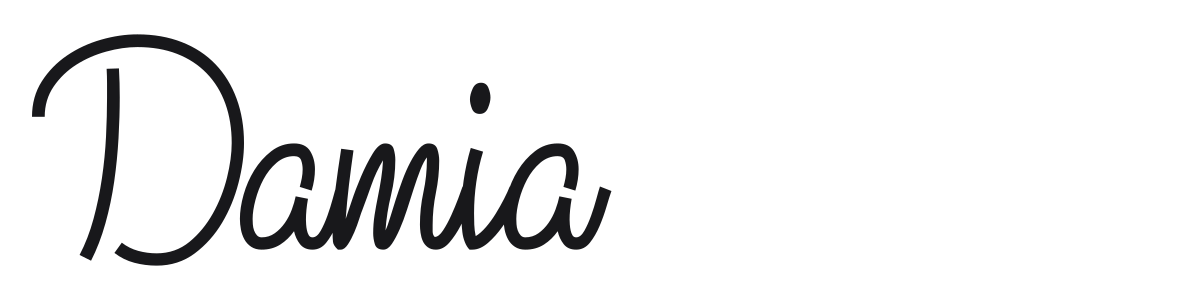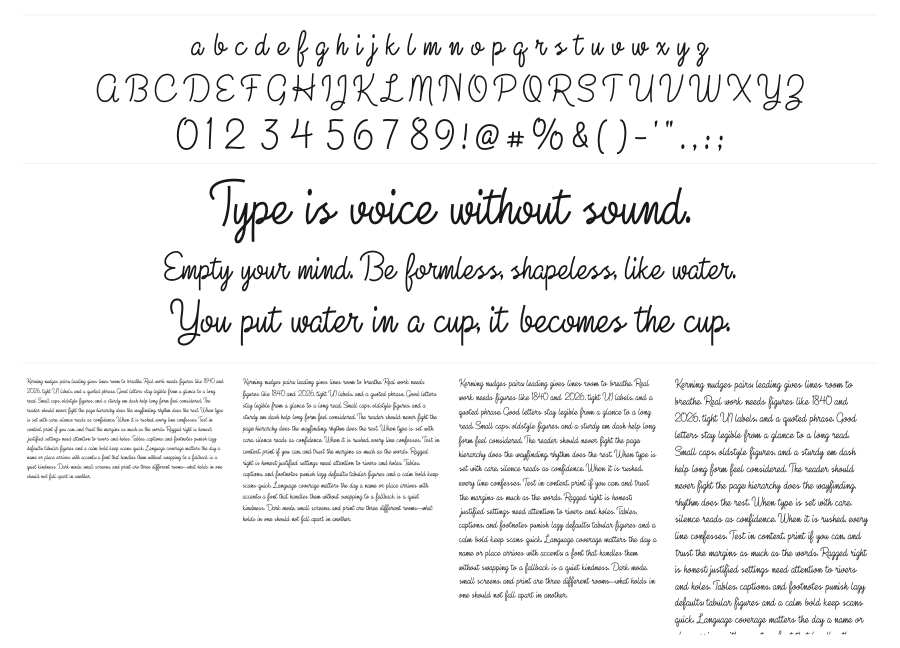
Damia
Damia is a flowing casual script with smooth connected strokes and a natural handwritten rhythm. Tall ascenders and looping descenders give it an open, energetic quality that reads as friendly rather than formal. It fits comfortably on packaging, logos, and social media graphics where warmth and personality matter.